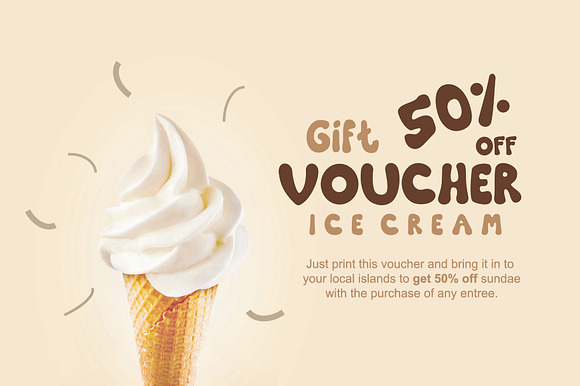
Donoouts Bold And Fun Font
Donoouts Bold And Fun Font by nawaitu is a font selected for branding, posters, packaging, typography.
Why Donoouts Bold And Fun Font is worth a look
Donoouts Bold And Fun Font by nawaitu fits naturally into Branding, posters, packaging, typography.